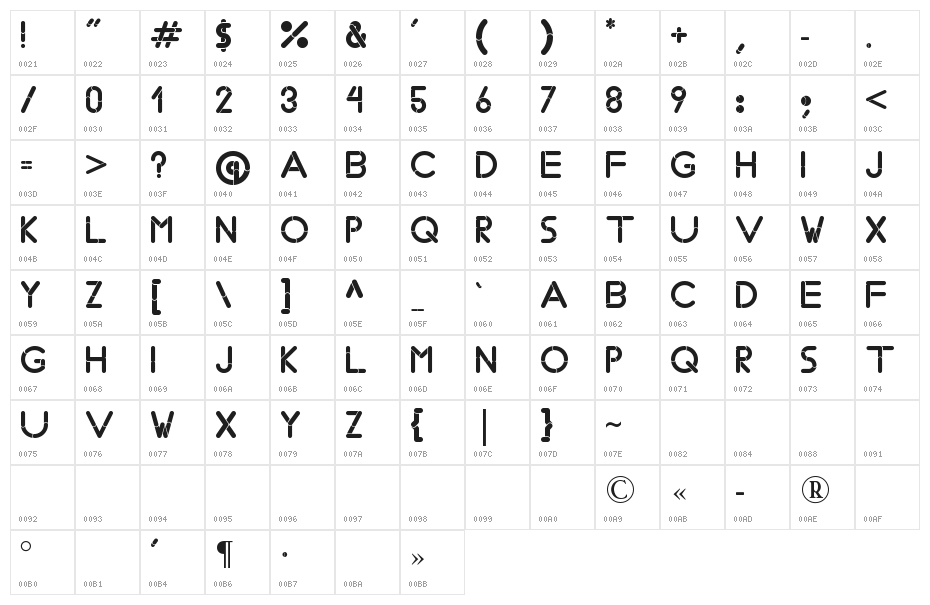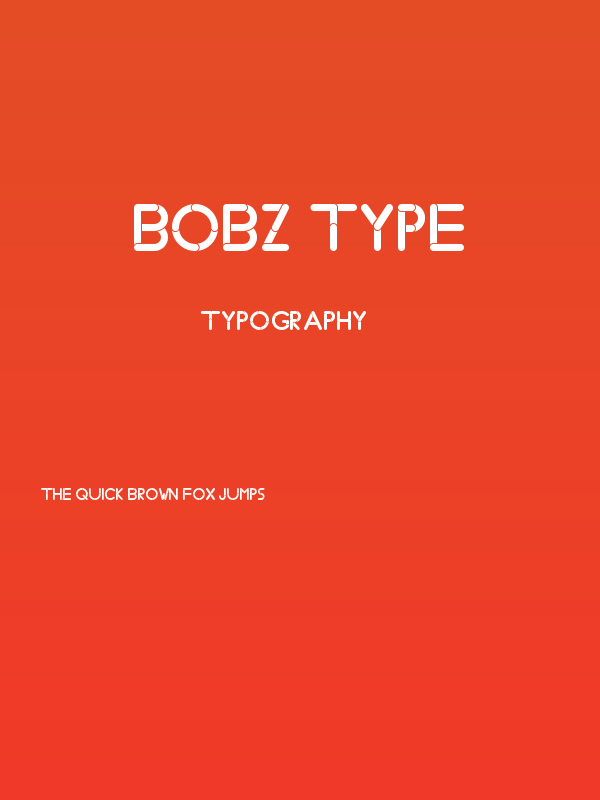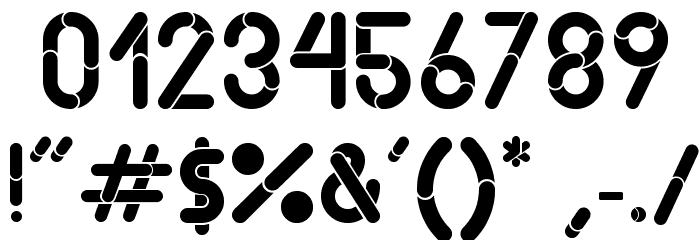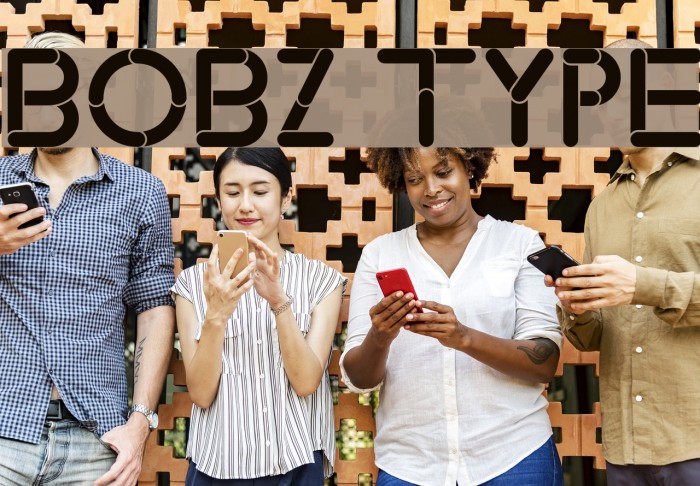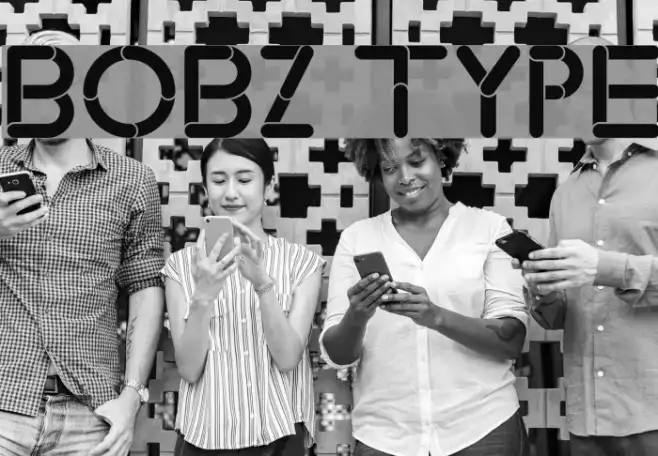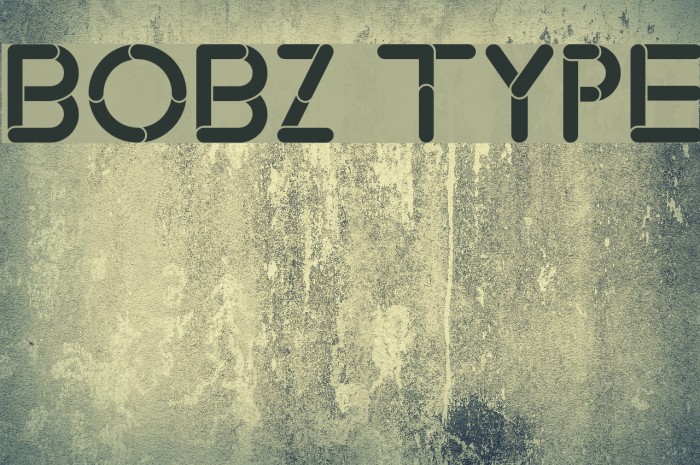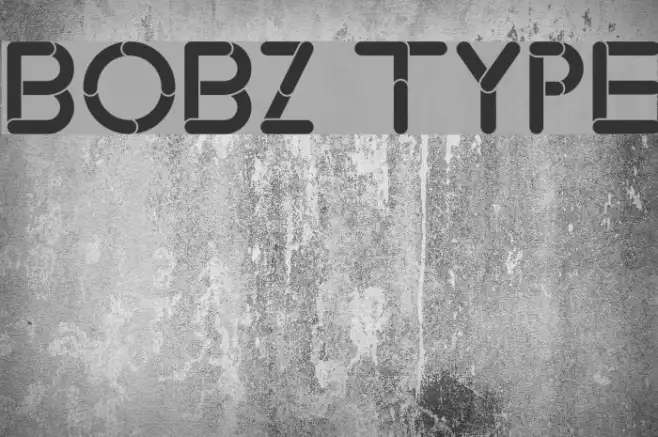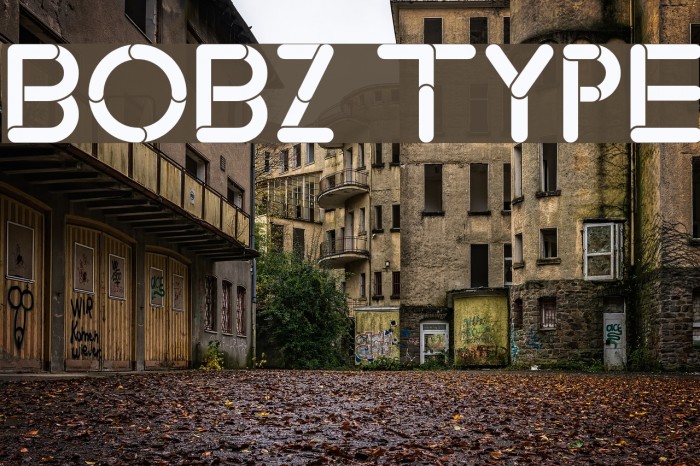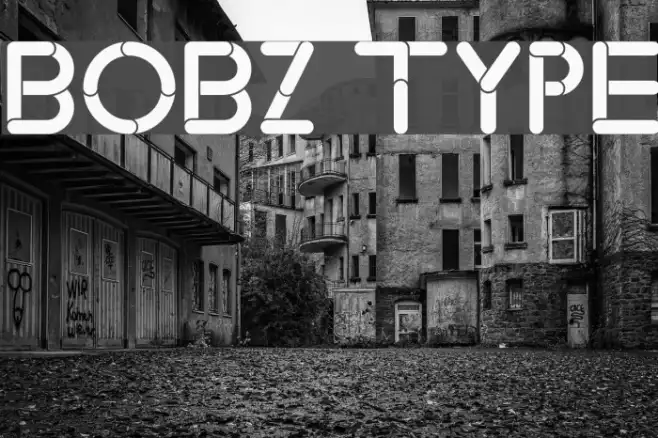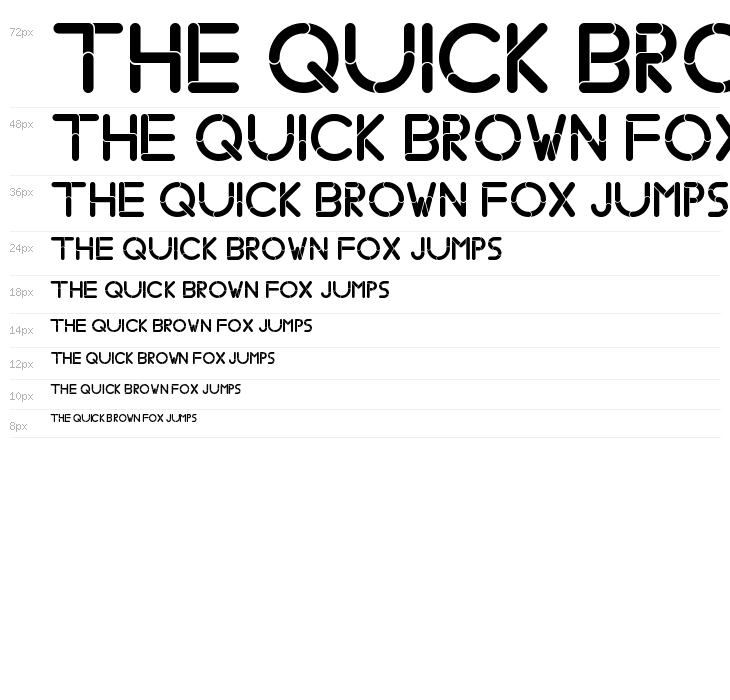
Bobz Type Font
Bobz Type Description
This font features a modern and geometric design with a unique twist. Each character is constructed using bold, rounded shapes that are partially segmented, creating a futuristic and digital appearance. The breaks in the strokes add a dynamic and playful element, making it stand out. The uniformity in the design ensures readability while maintaining a distinct style. The numbers and special characters follow the same segmented pattern, ensuring consistency across the entire typeface.
| Proposed Projects | Ideal for tech-related branding, futuristic posters, digital interfaces, and creative advertising. |